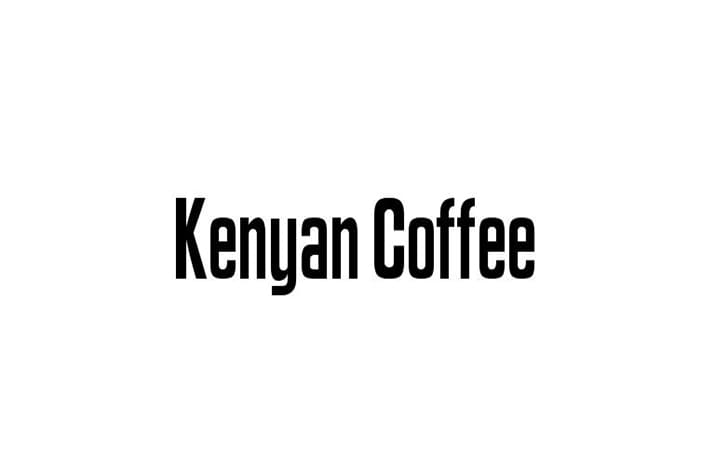
Kenyan Coffee Font is a combination of a variety of fonts with a unique and stylish outlook to make the design beautiful. It conveys a sense of sans serif aesthetic.
A famous type of foundry Typodermic Fonts took the charge of creating and sharing it for the first time in 1999.
Initially, it had a very narrow headline typeface but was redesigned in 2011. and an extension to the Variety Fonts family by Ray Larabie.
After the redesign, the demand for this font family increased in the market. Due to its futuristic design, it features nice swashes, a super cool real type. It helps to enhance the design campaign.
It comes in four unique weights including regular, bold, regular-italic, and bold-italic. Each style included in this family has contained 747 characters.